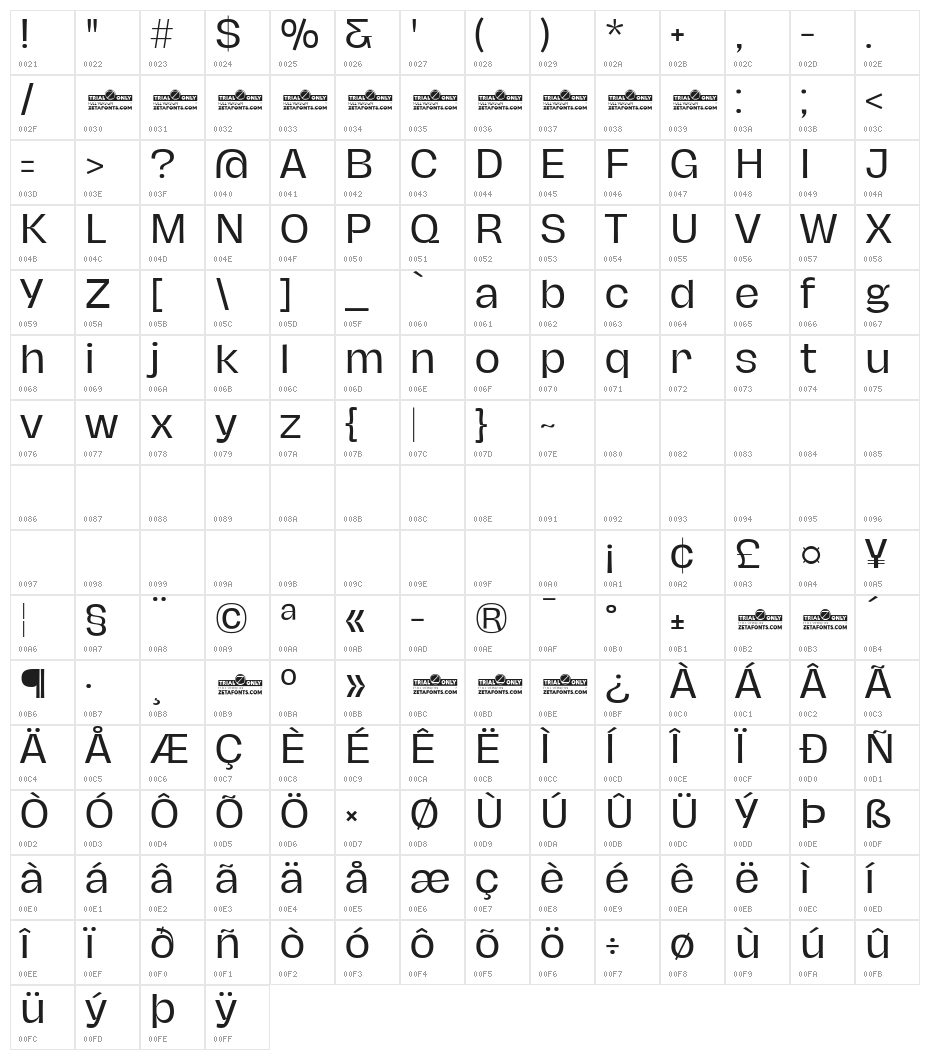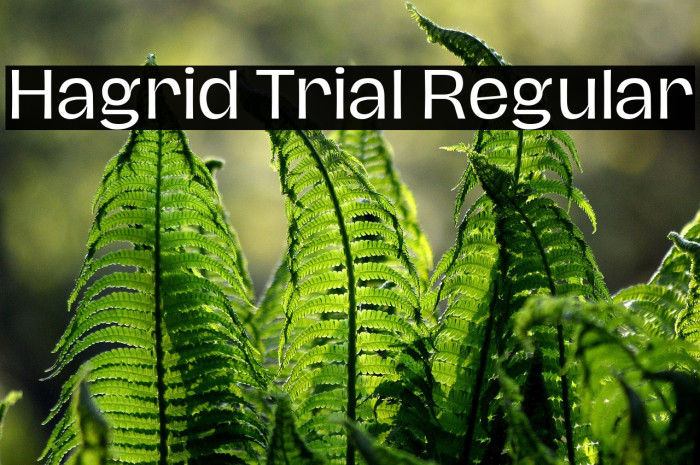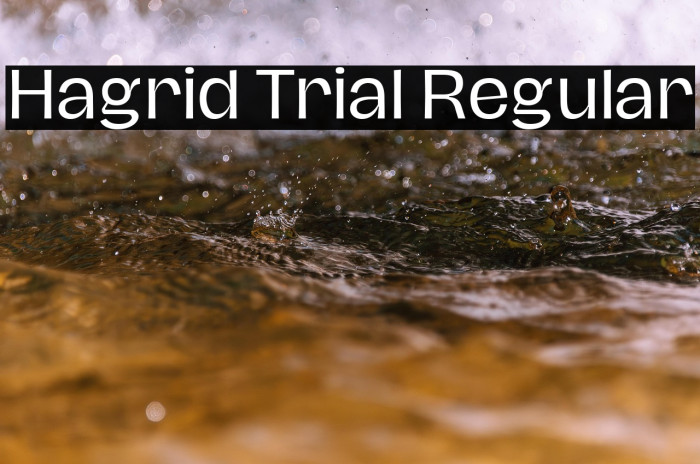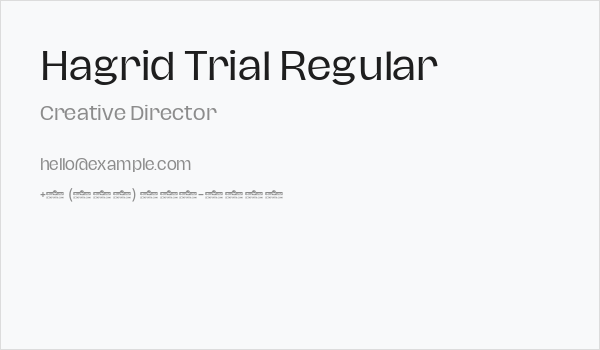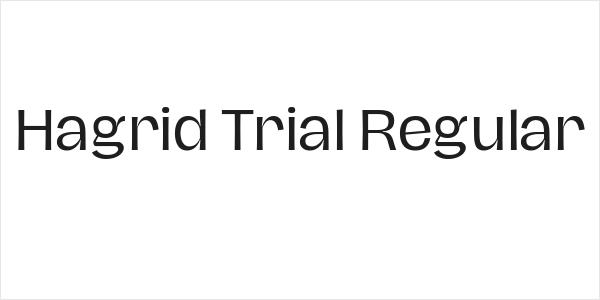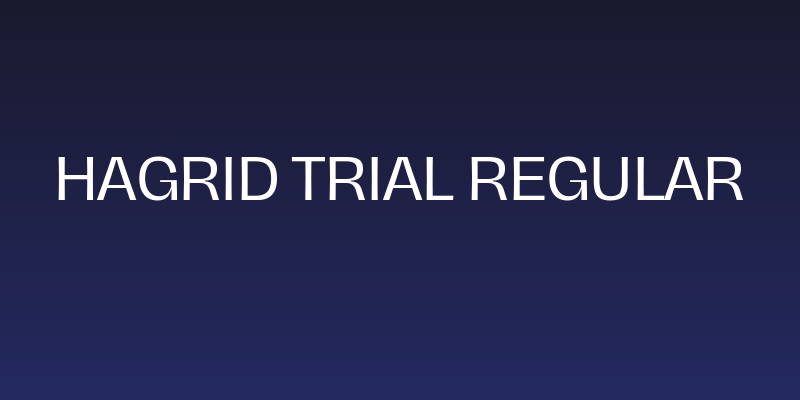
Hagrid Trial Regular Font
Hagrid Trial Regular Description
This font presents a clean and modern sans-serif style with a uniform stroke width, offering a balanced and straightforward appearance. The characters are well-proportioned, featuring a geometric design that enhances readability. The uppercase letters are bold and assertive, while the lowercase letters maintain a consistent and harmonious flow. The numerals are clear and distinct, matching the overall aesthetic of the alphabet. Special characters are designed with simplicity, ensuring they integrate seamlessly with the text. This font is versatile, suitable for both digital and print media, providing a professional and contemporary look.
| Proposed Projects | Ideal for branding, web design, corporate materials, and editorial layouts. |